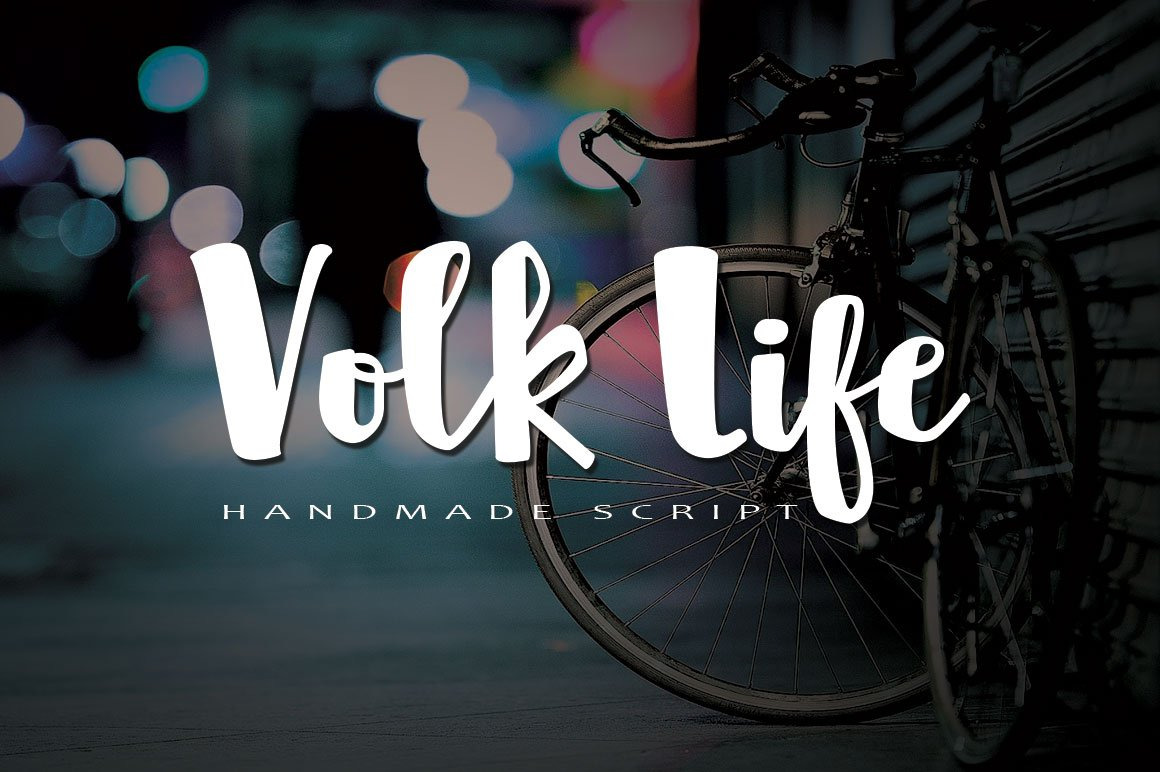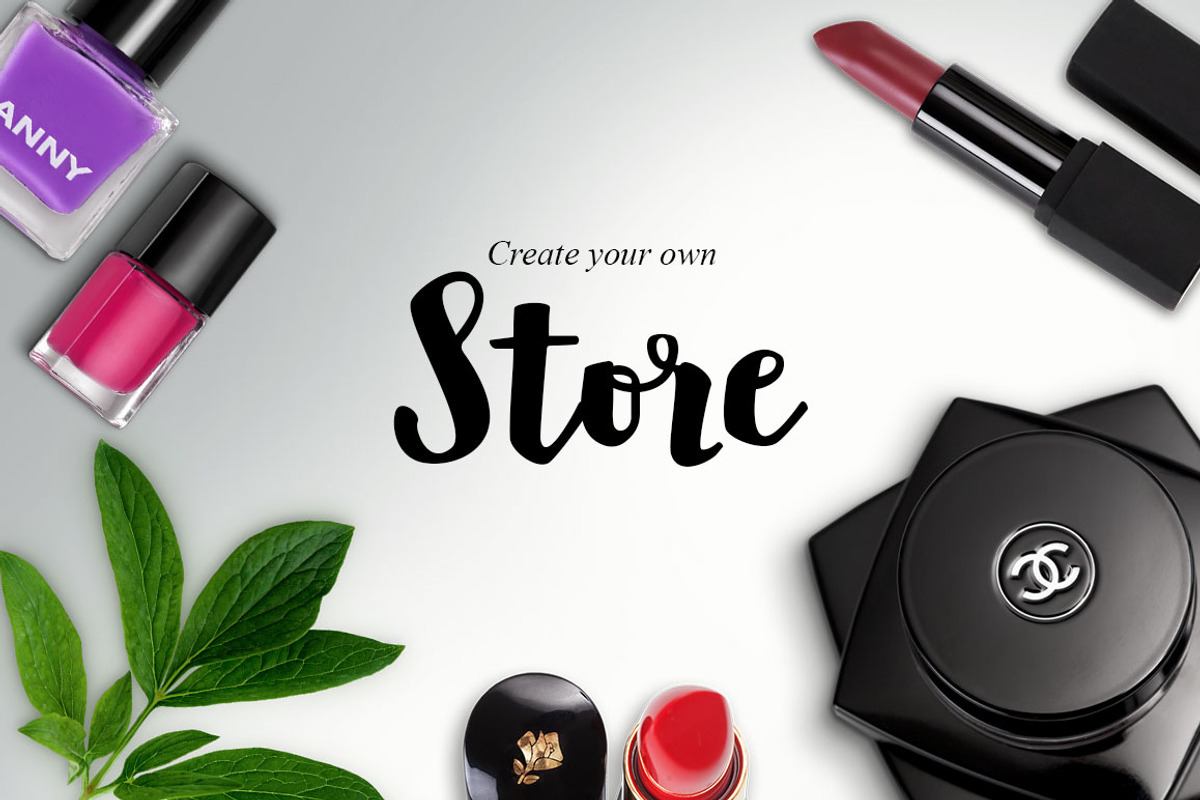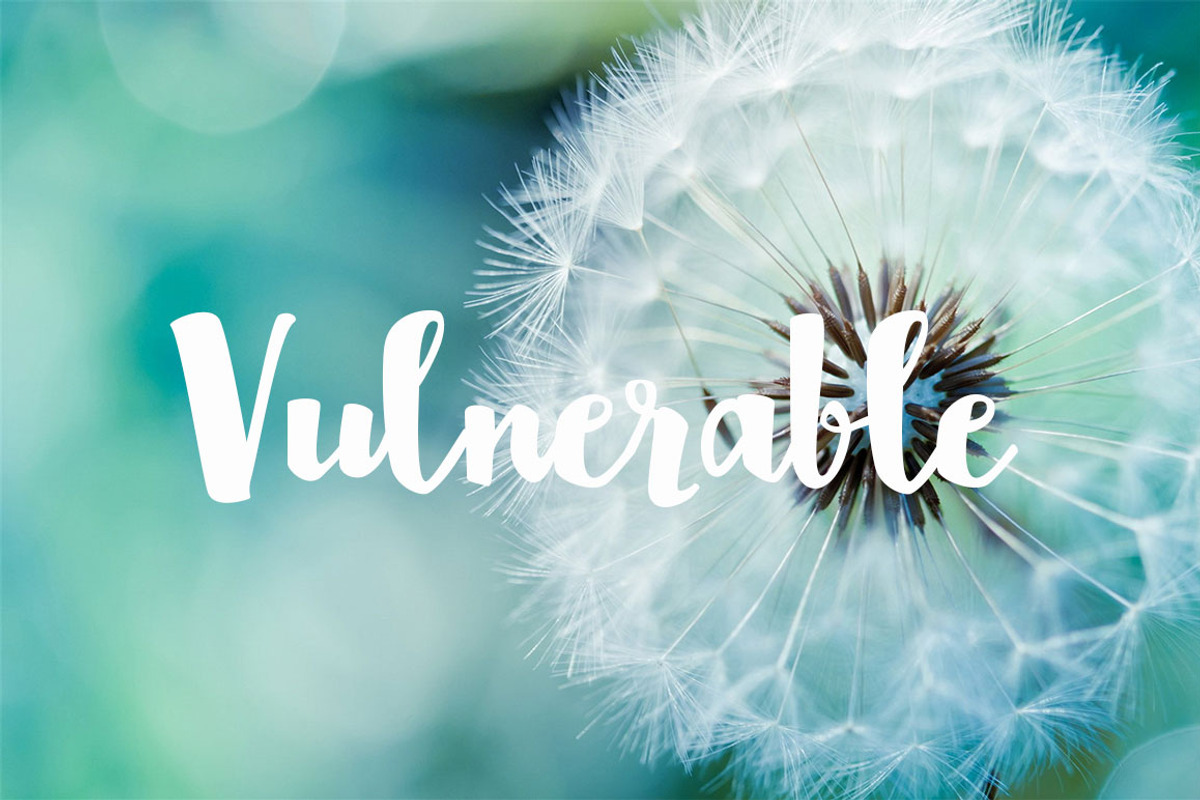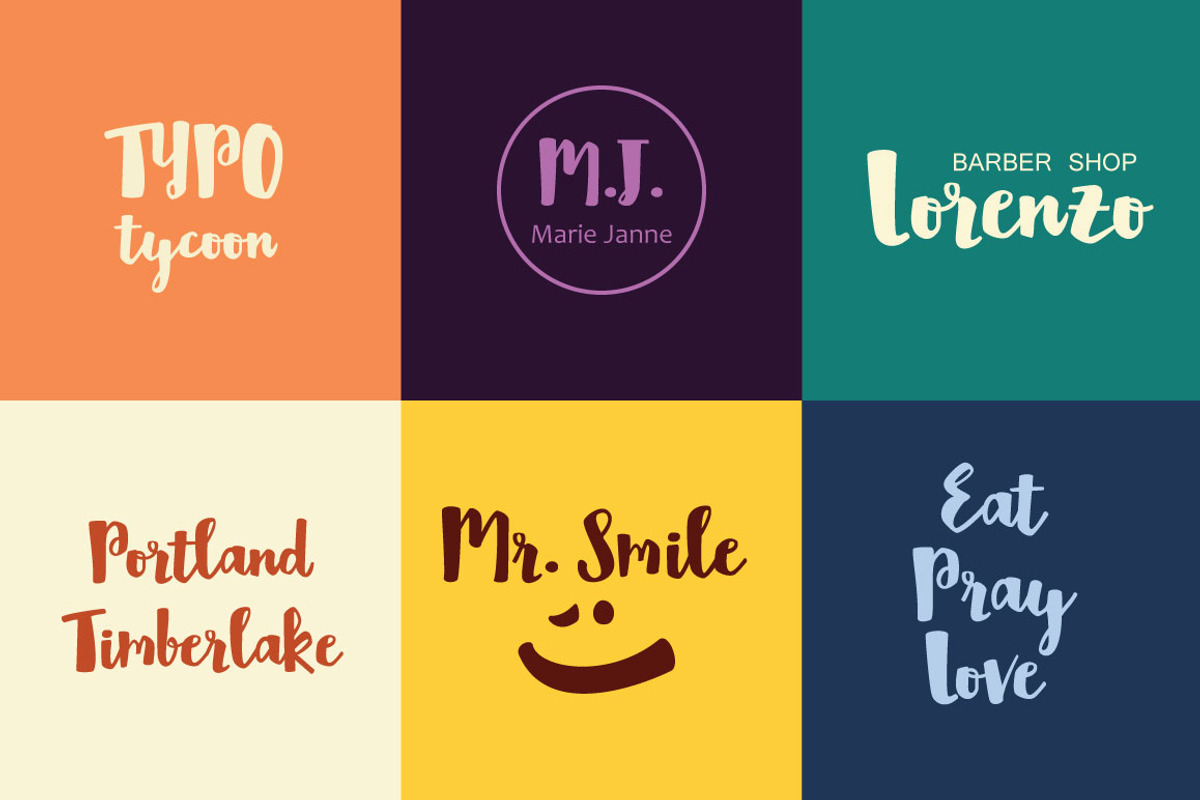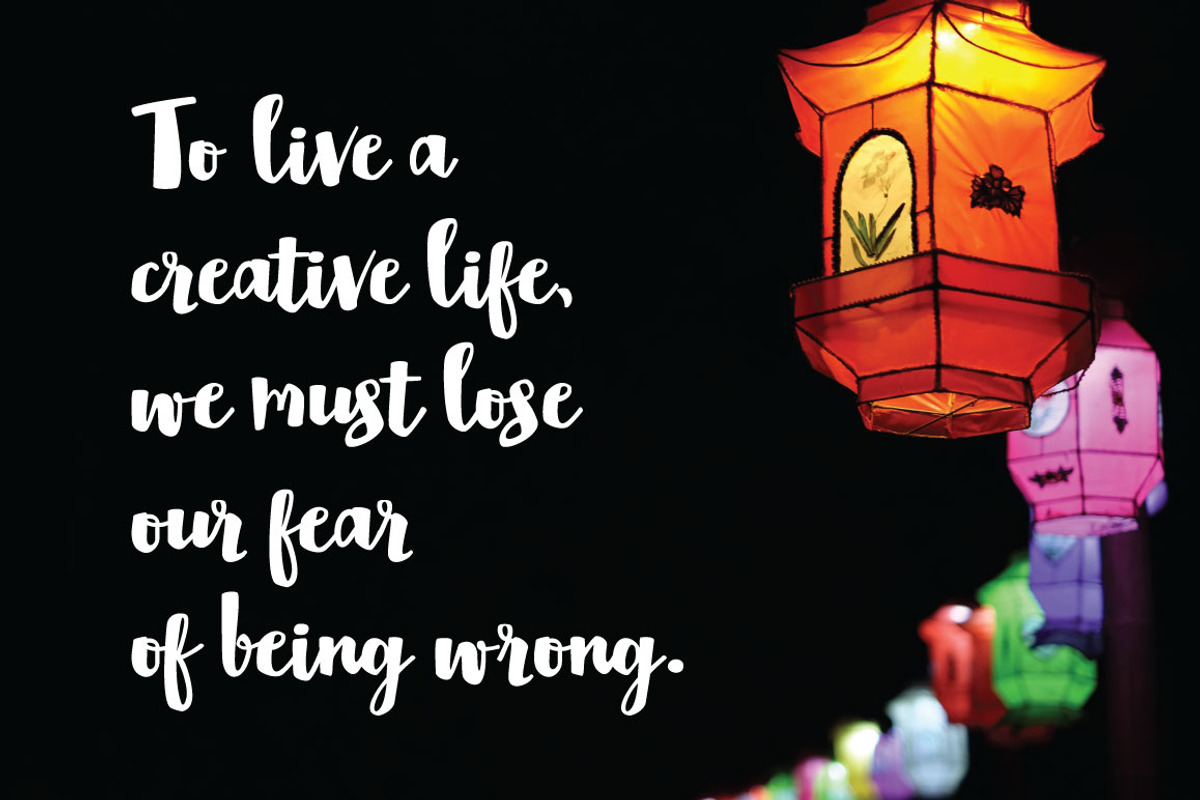
Volk Life Typeface
Volk Life is a bold marker script font which strong, heavy and ecstatic feeling. Create with love and add your design with romantic feeling too. Volk Life is just what you've been looking for!
Use Volk Life on all of your projects to give strong and heavy view font. In particular would look great on, branding projects, logos, product packaging, posters, invitations, greeting cards, titles, blogs, everything that includes personal charm and you name it. ;)
Volk Life bold marker script comes with upper and lowercase characters, punctuation glyphs, numerals, and a TTF of web font. Feel free to use it for commercial/ extended license purposes.